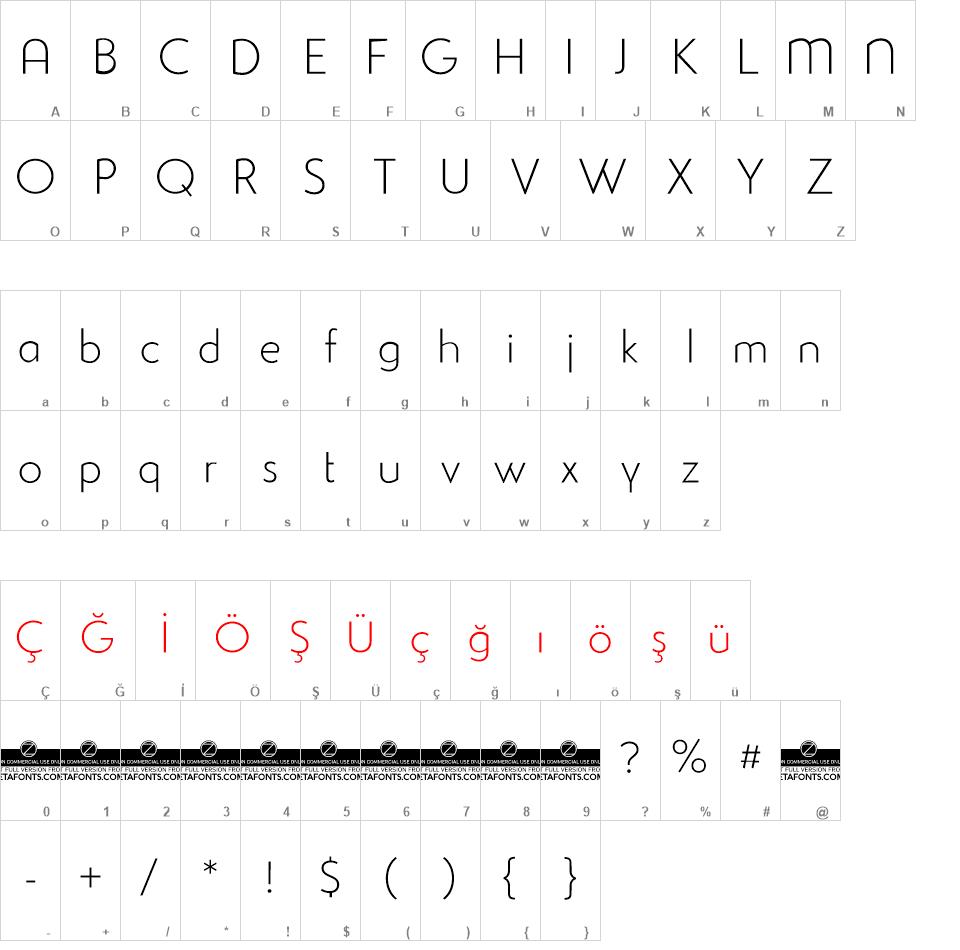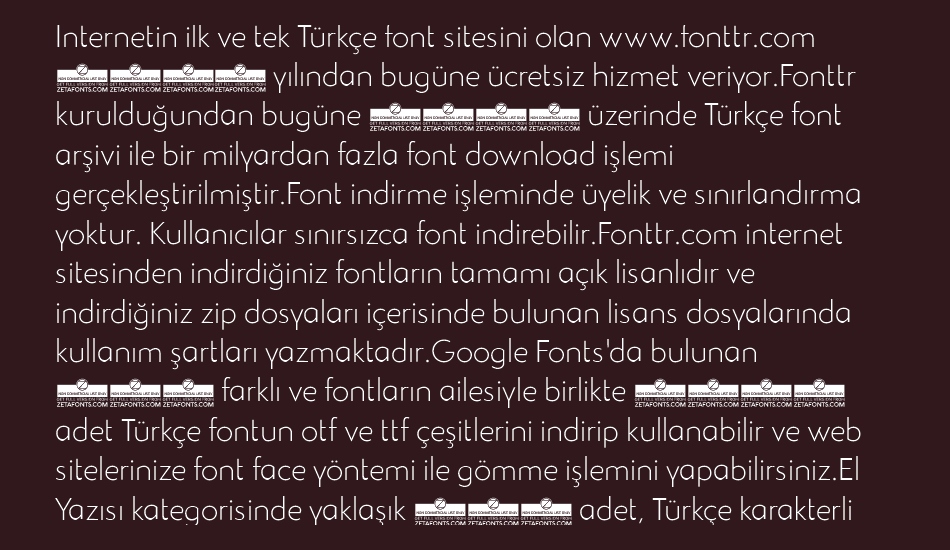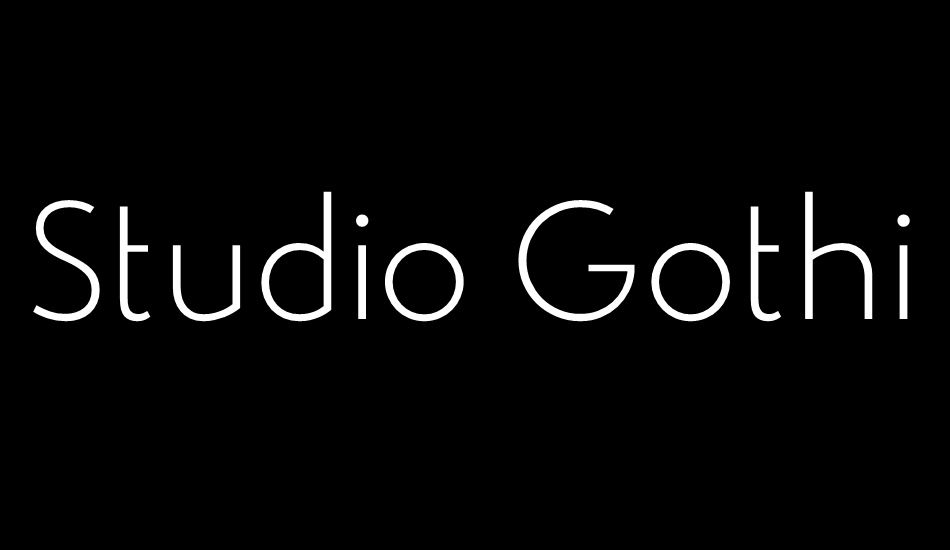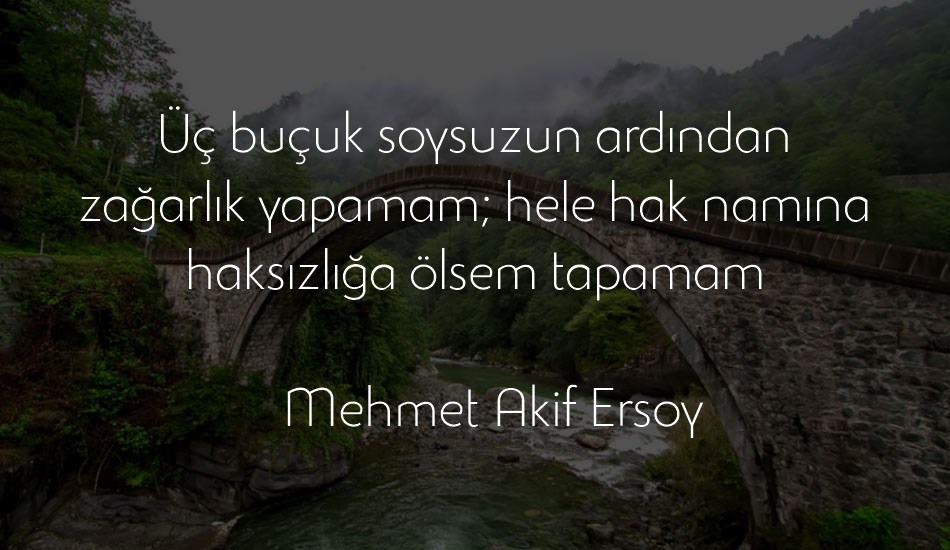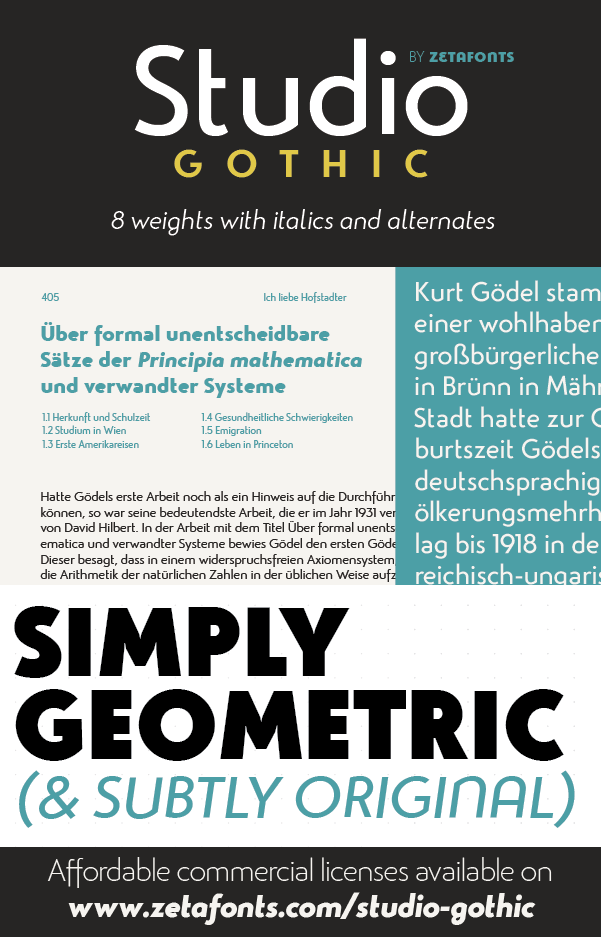
Studio Gothic font
Studio Gothic
Studio Gothic is a geometric sans typeface designed by Andrea Tartarelli of Zetafonts with Cosimo Lorenzo Pancini and Francesco Canovaro.
It takes inspiration from the ideas used by Alessandro Butti for his historical typeface Semplicità created in the thirties.